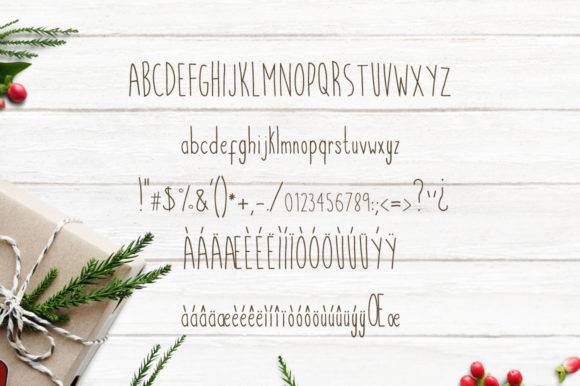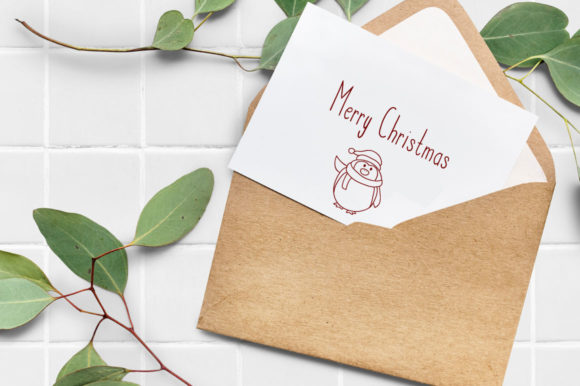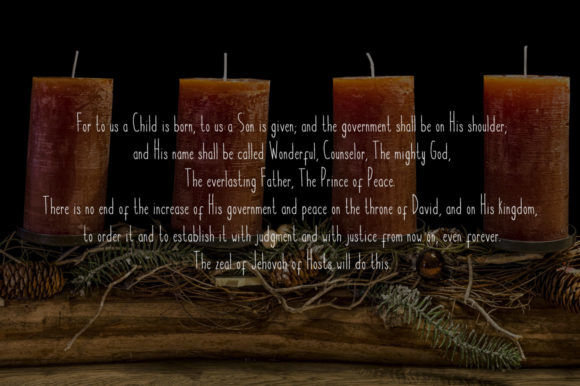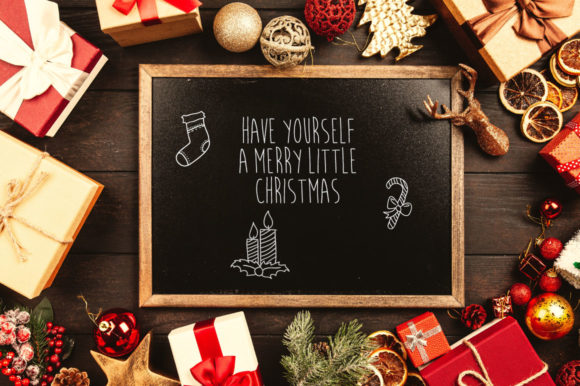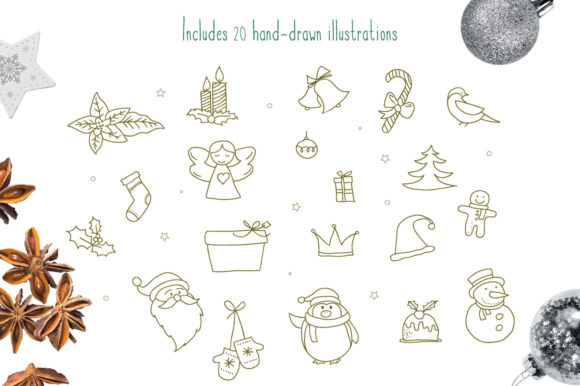
Candlestik Font
About Candlestik Font
The Candlestik is a handwritten typeface with a festive style. It has a great readability and can be used for Christmas cards, crafts decor, and much more!
Included as a bonus are 20 hand-drawn illustrations, inspired by the festive season.